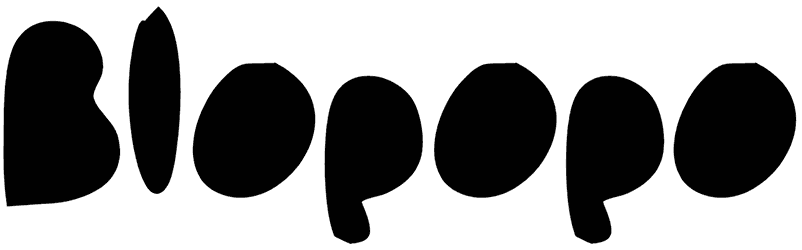
Blopopo Font
Every piece of your posters, illustrations, book covers, gift cards, or greeting cards including the fancy font must be excellent enough that the audience can’t ignore it, thus we want to offer you a magical cartoon font such as Blopopo to fulfill this goal. Since its characters are bold, curved, and crooked, it can lead to a sense of childishness, love, grunge, or disorder.
a very Fat and Bold character
This font is good for DISPLAY or headline purpose